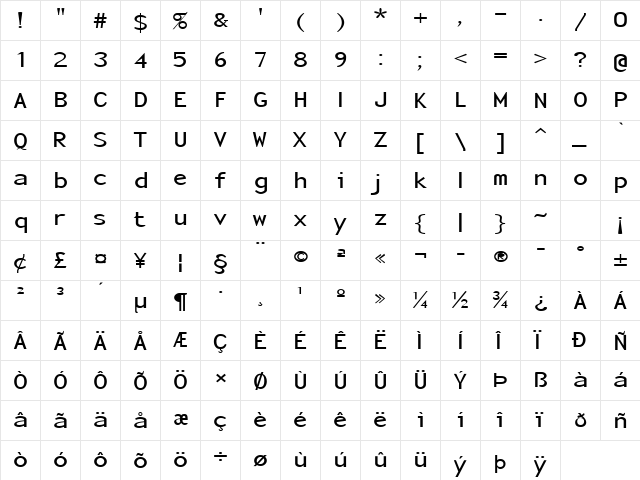
Sensor-Extended Normal
Design Context for Sensor-Extended Typeface
Sensor-Extended takes a measured approach to typography — its balanced proportions and neutral character make it a reliable workhorse for both digital and print work.